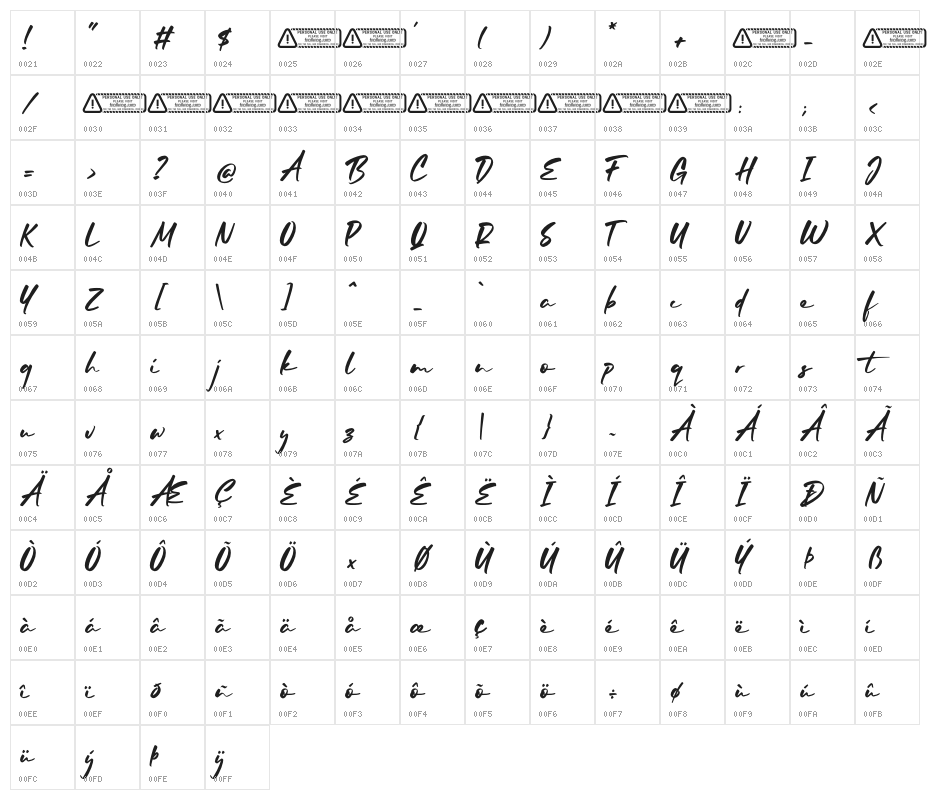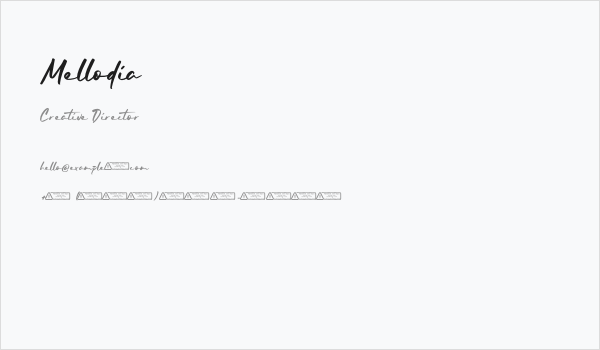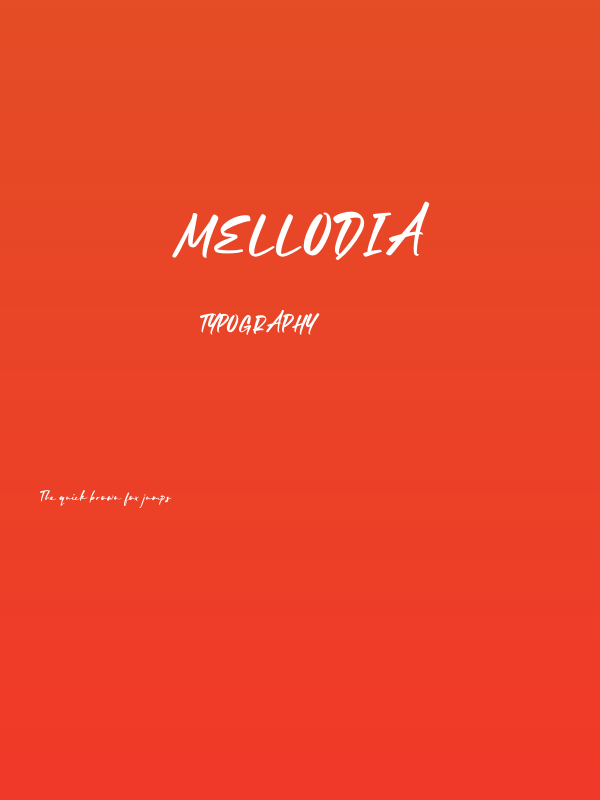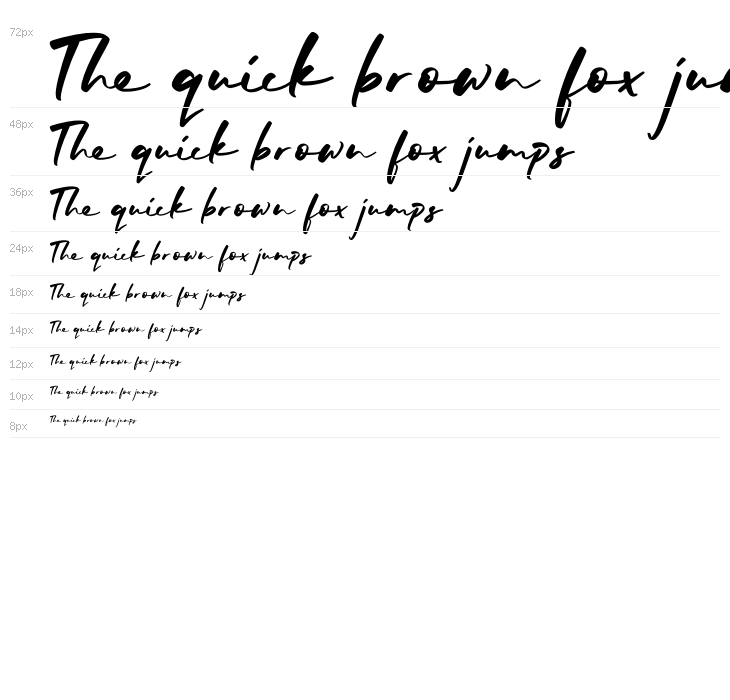
Mellodia Font
Mellodia Description
A dynamic, brush-script style font with fluid, connected strokes and a handwritten appearance. The characters feature varying stroke thickness and a casual, energetic flow, giving it a personal and expressive feel.
| Overall Style | Decorative, Handwritten, Modern |
| Use Case | Logos, Headlines, Invitations, Social media graphics |
| Proposed Projects | Greeting cards, invitations, branding, social media graphics, posters, and expressive headlines. |